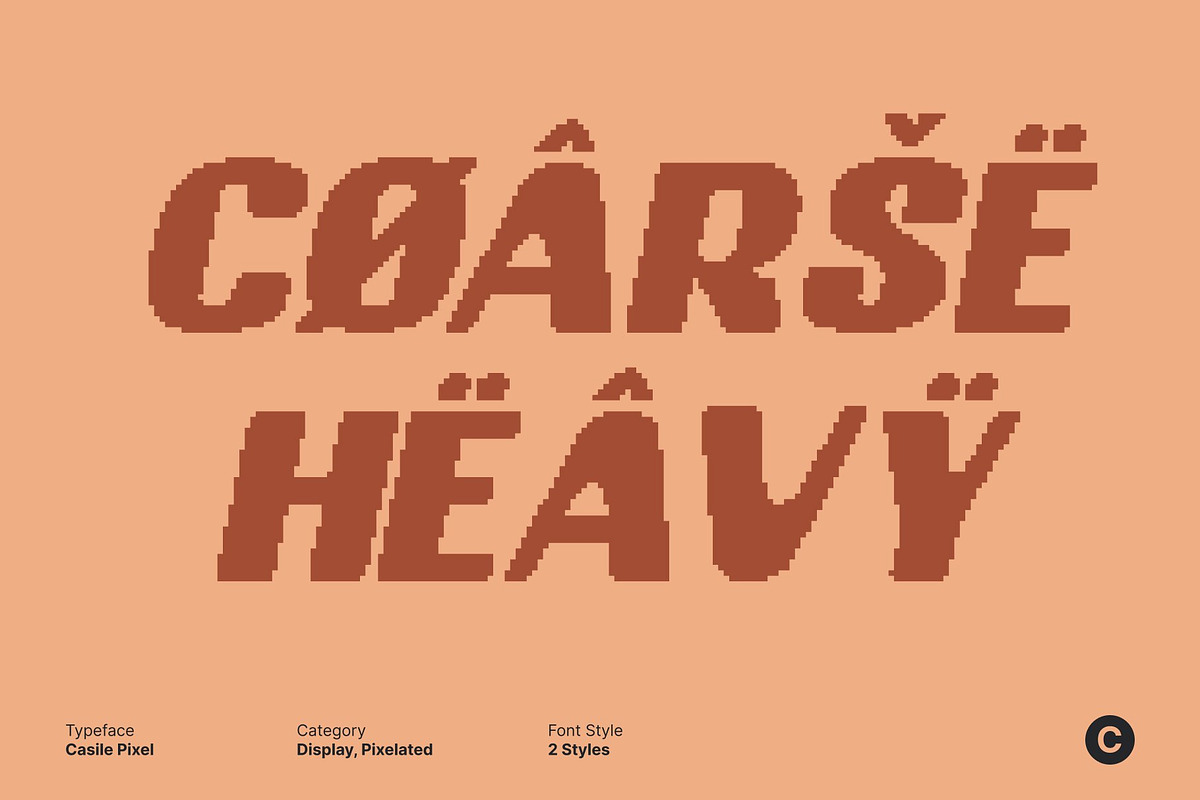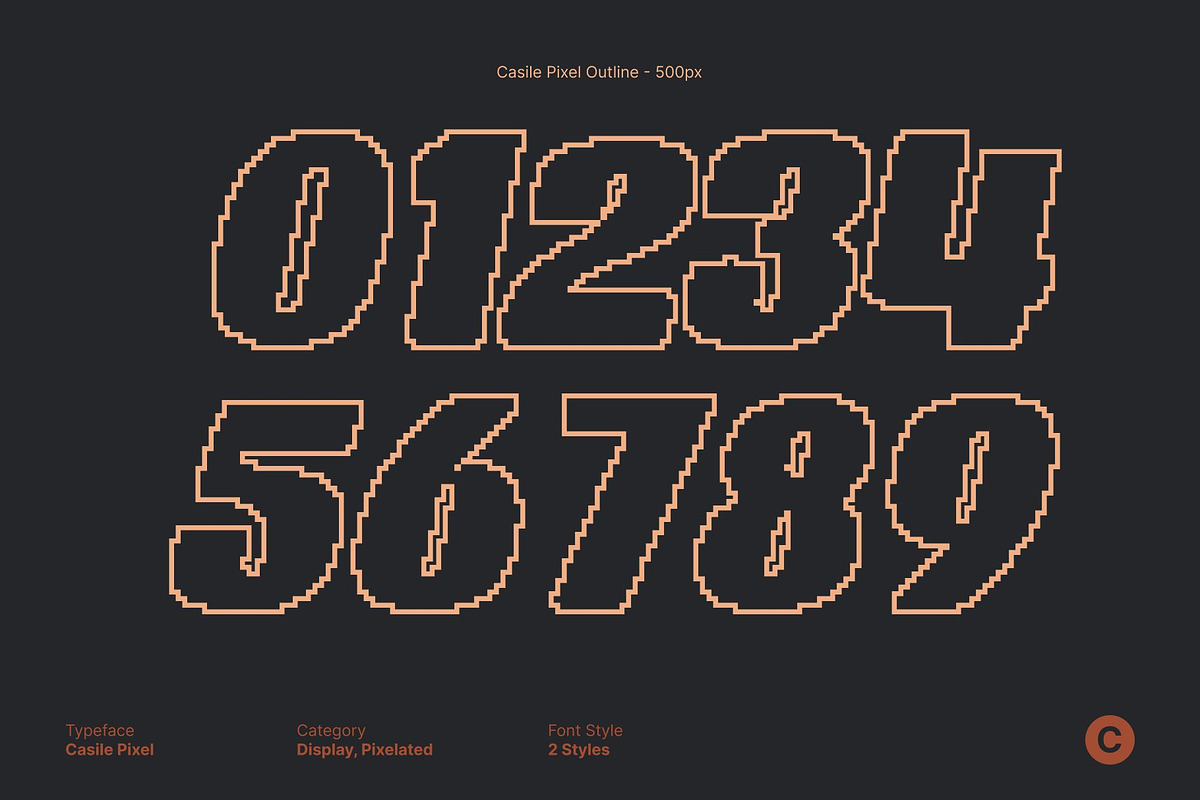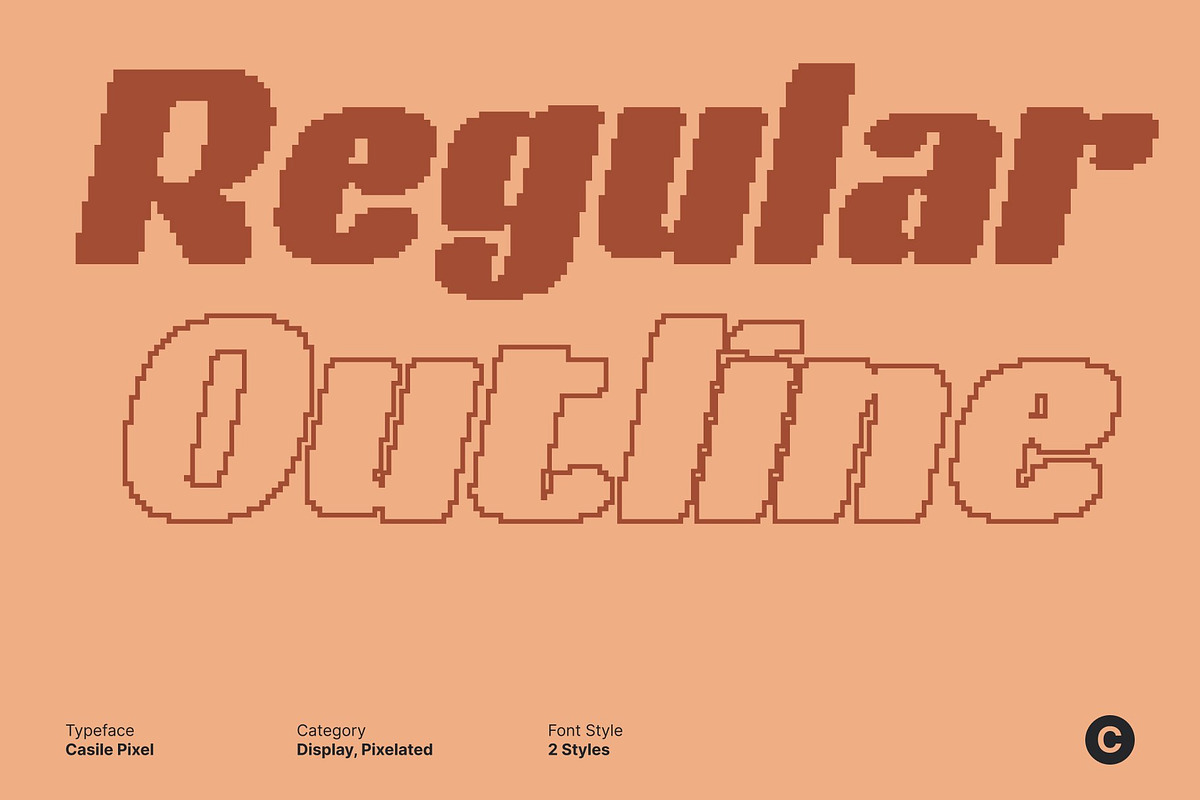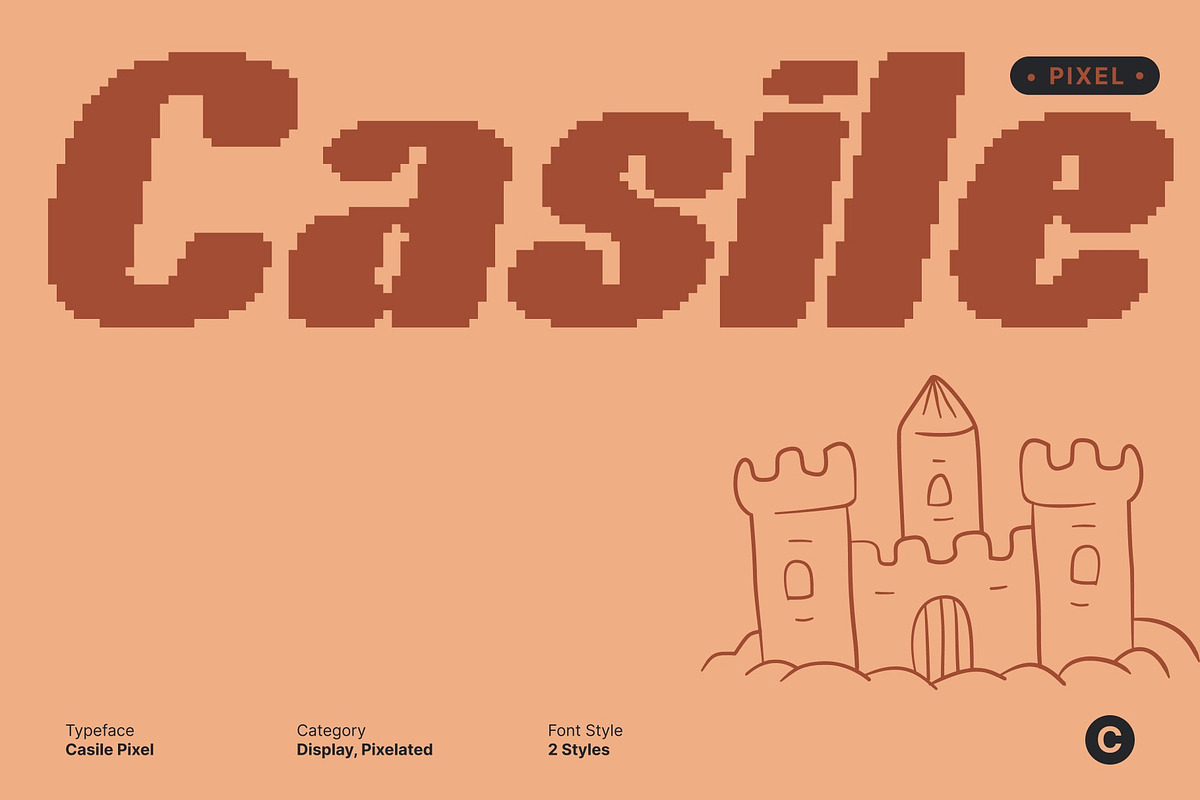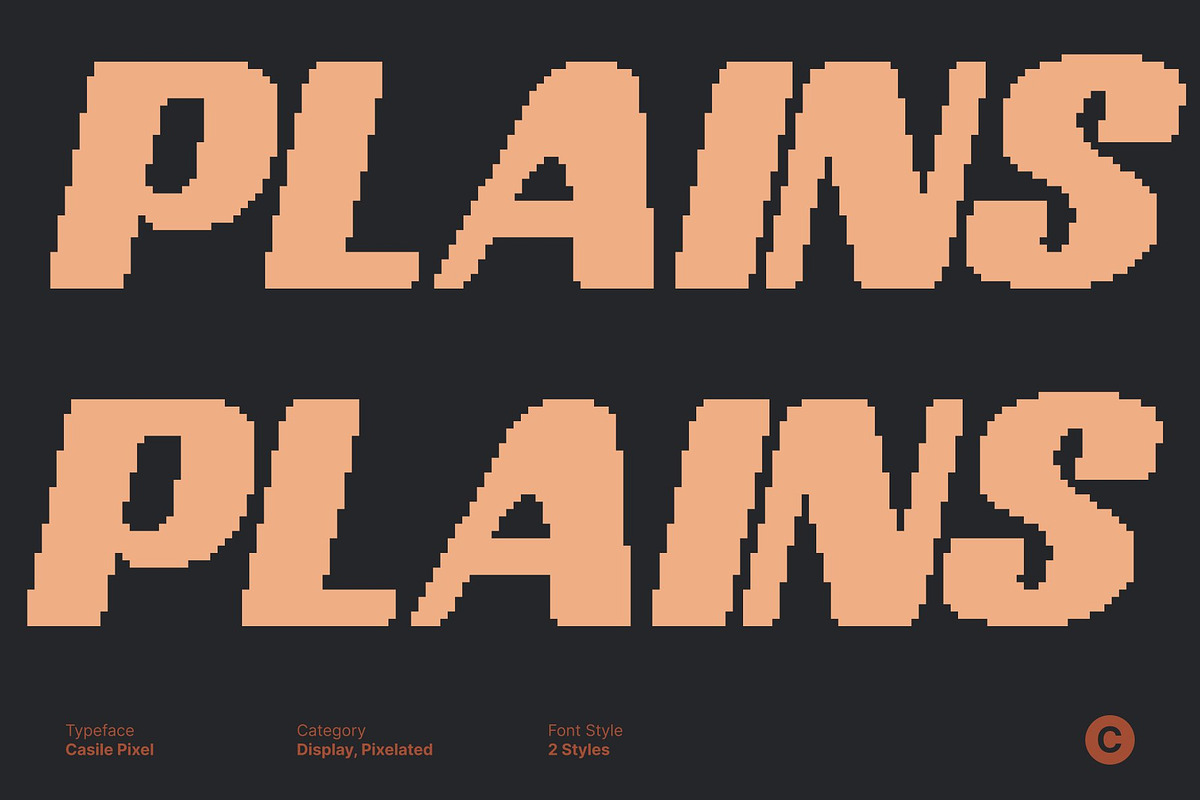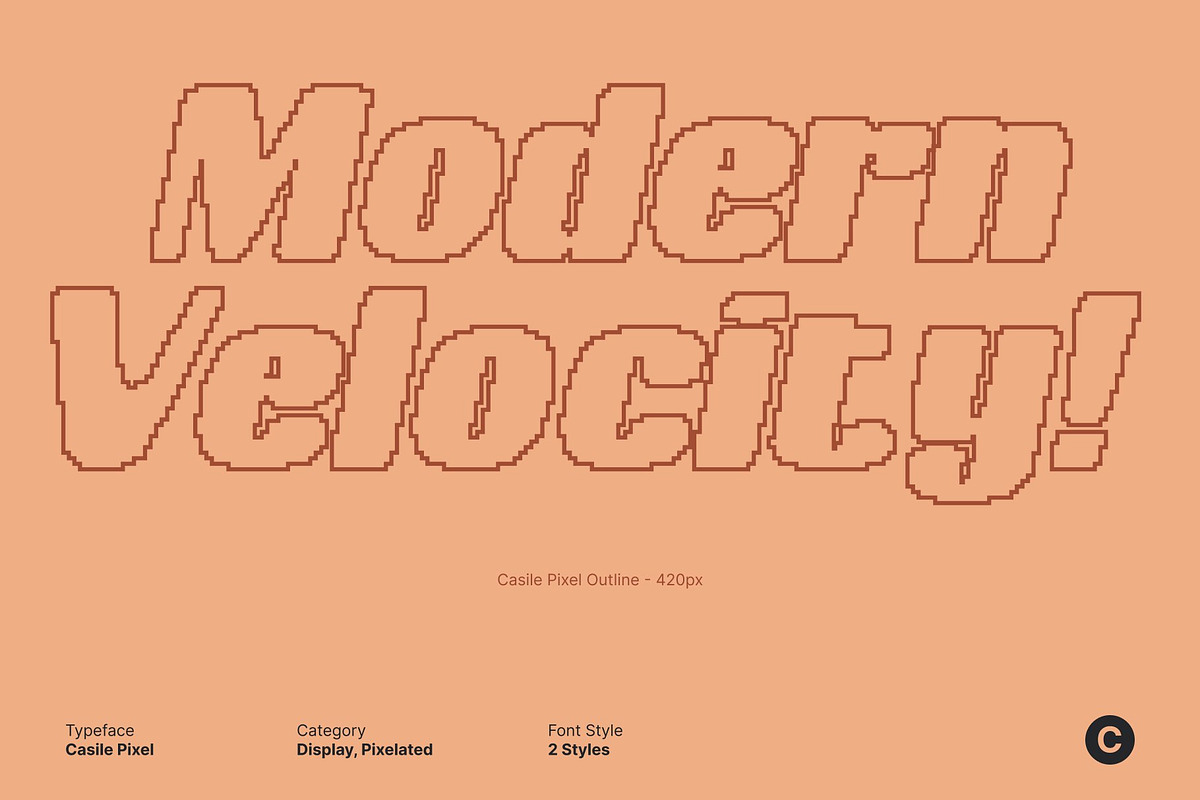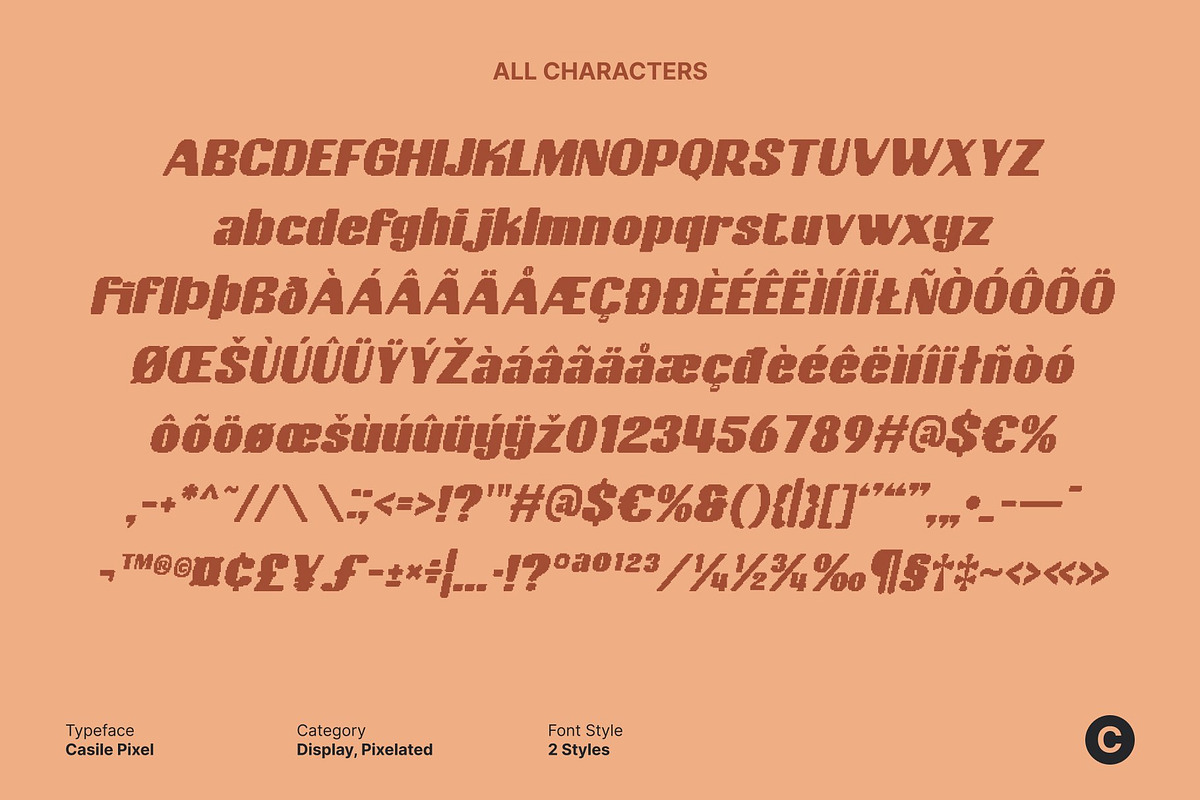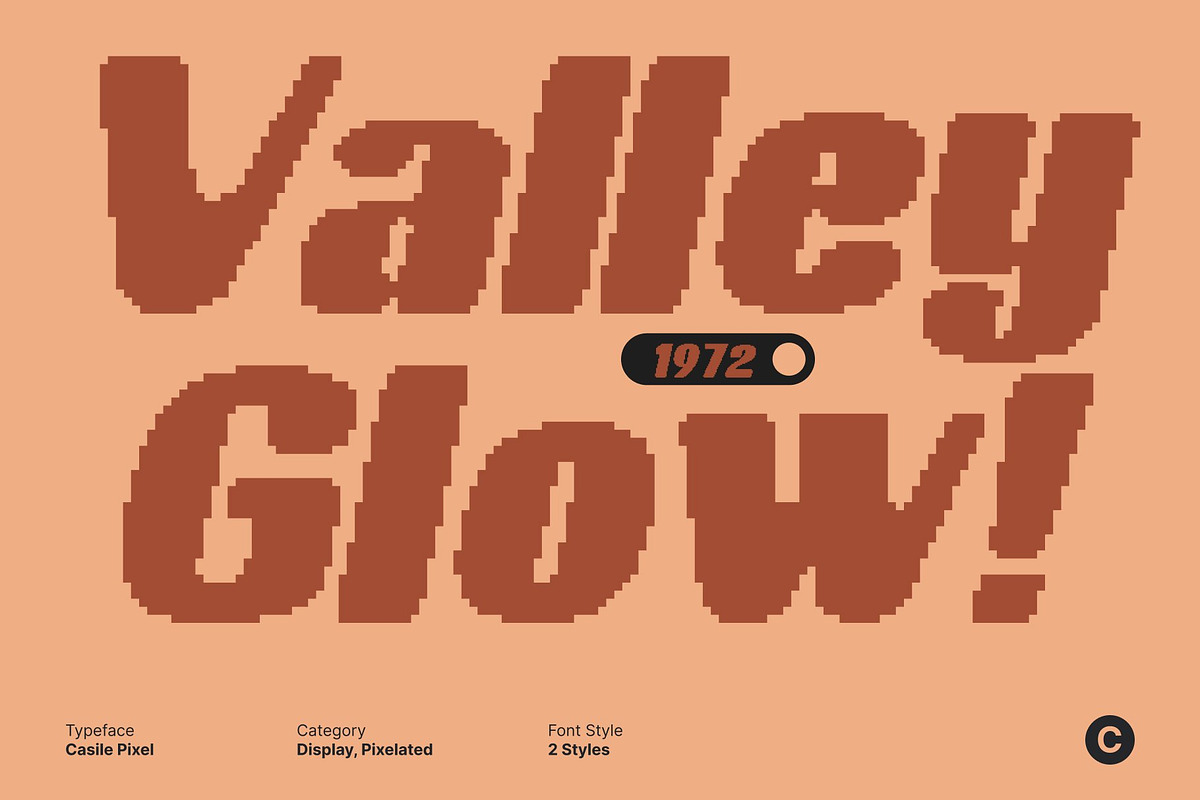
Casile Pixel
Casile Pixel – Bold Retro Sans Serif
Striking Bold Forms with Pixel Texture This is a bold sans serif font featuring thick, confident strokes and a retro-inspired structure enhanced by a subtle pixel character. This combination creates a strong visual presence that feels nostalgic yet fresh, making the font instantly eye-catching.
Modern Strength with Nostalgic Energy Blending modern boldness with vintage charm, this font delivers an inviting retro feel rooted in classic graphic styles. The pixel detailing adds a digital twist, reinforcing its nostalgic tone while keeping the design relevant for contemporary use.
Versatile for Impactful Design This font is well suited for posters, headlines, branding, packaging, and promotional materials. Its bold weight ensures strong readability, while the retro pixel influence helps designs stand out across both print and digital media.
Timeless Appeal with Distinctive Character With its fusion of bold sans serif structure, retro spirit, and pixel-enhanced texture, This font bridges past and present effortlessly. It adds a distinctive, memorable impact to any project that calls for modern strength wrapped in nostalgic style.
- Casile Pixel Regular
- Casile Pixel Outline